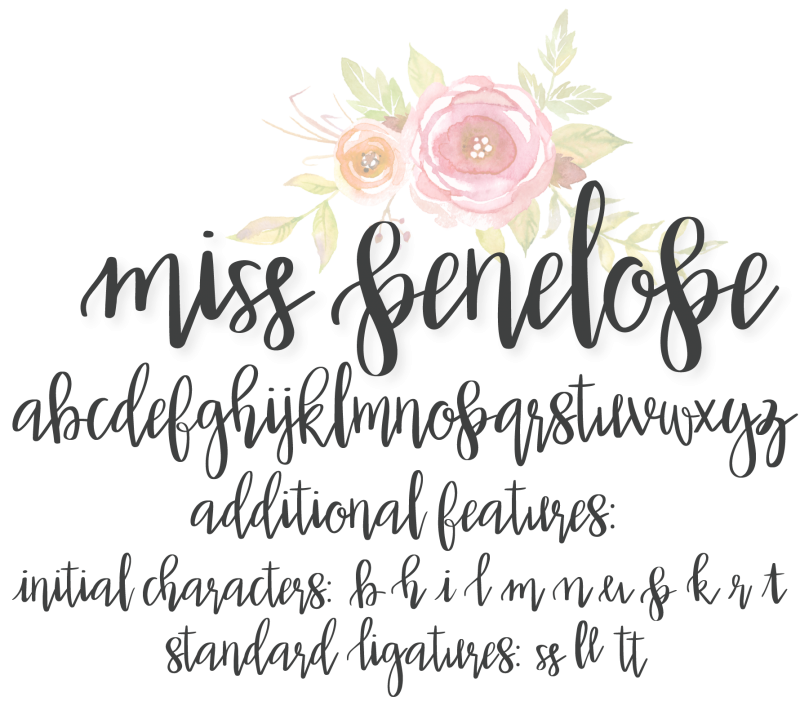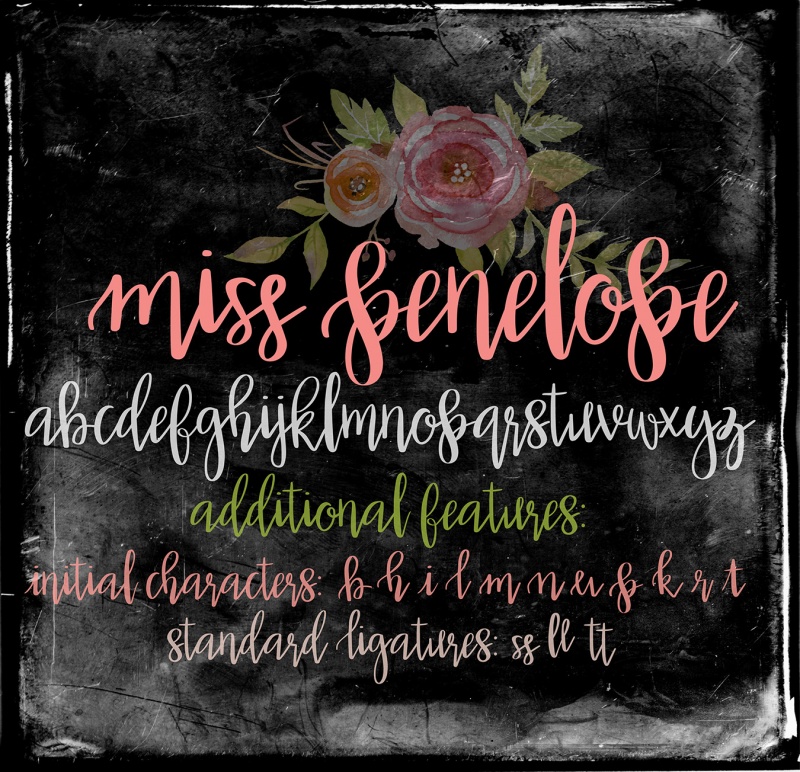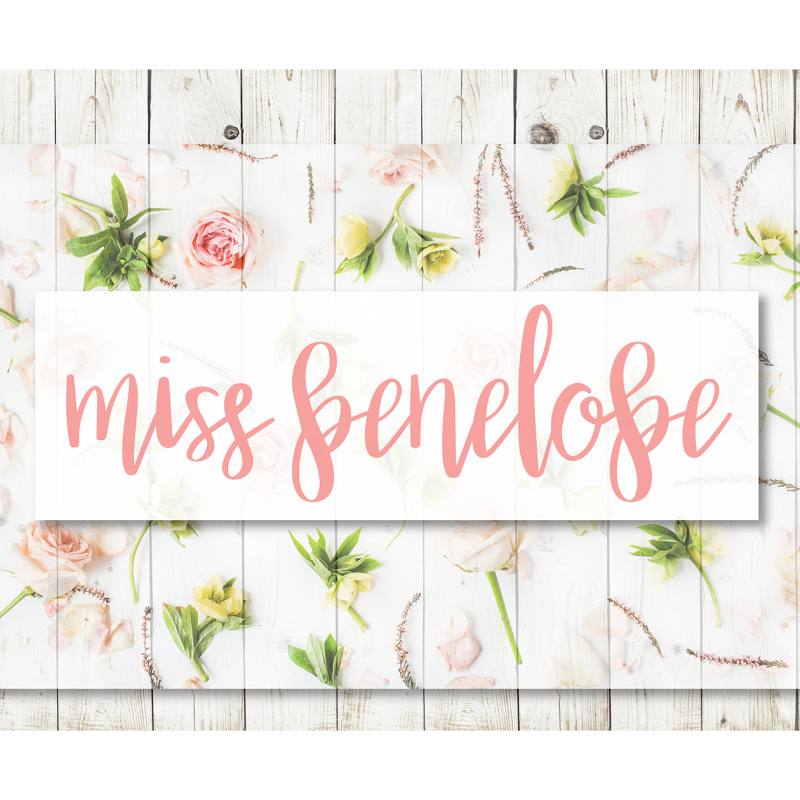
Miss Penelope Font
A pretty, handwritten script font. Perfect for greeting cards, stationary, scrapbooking, prints and more! This font includes some initial characters, standard ligatures, and stylistic alternatives. Includes numbers and standard punctuation.